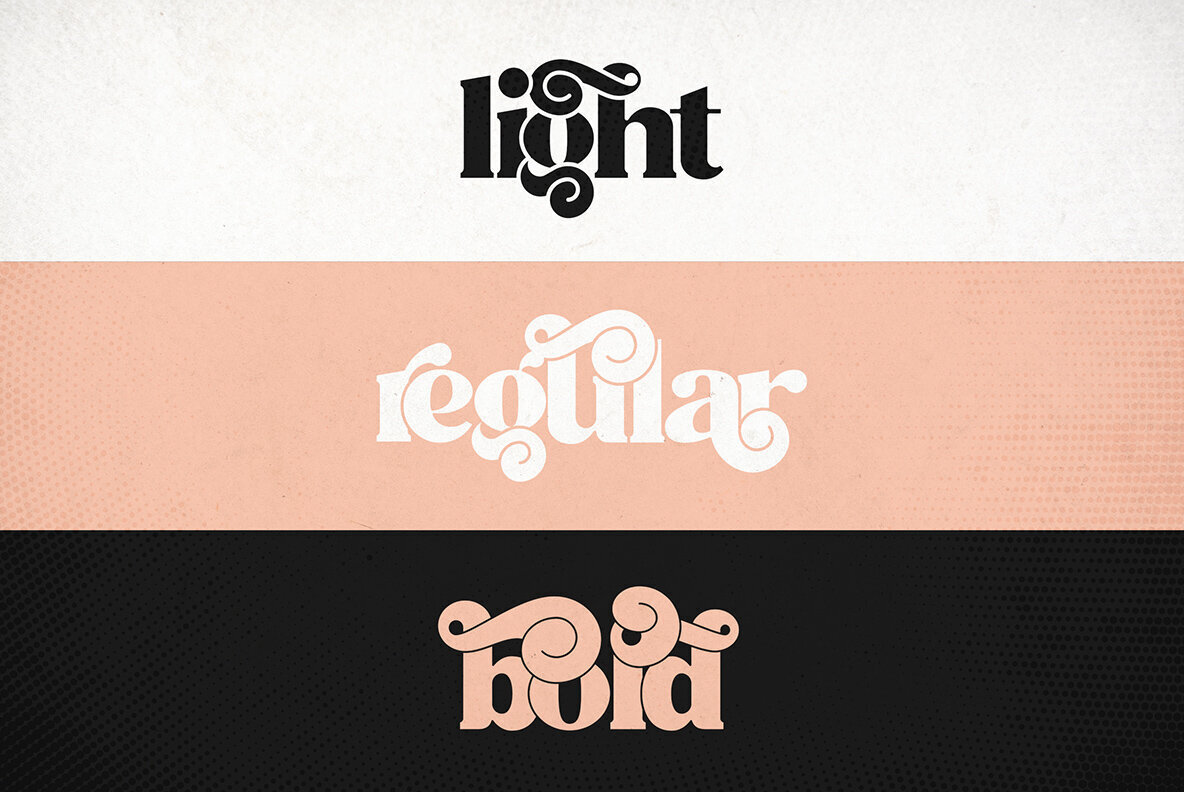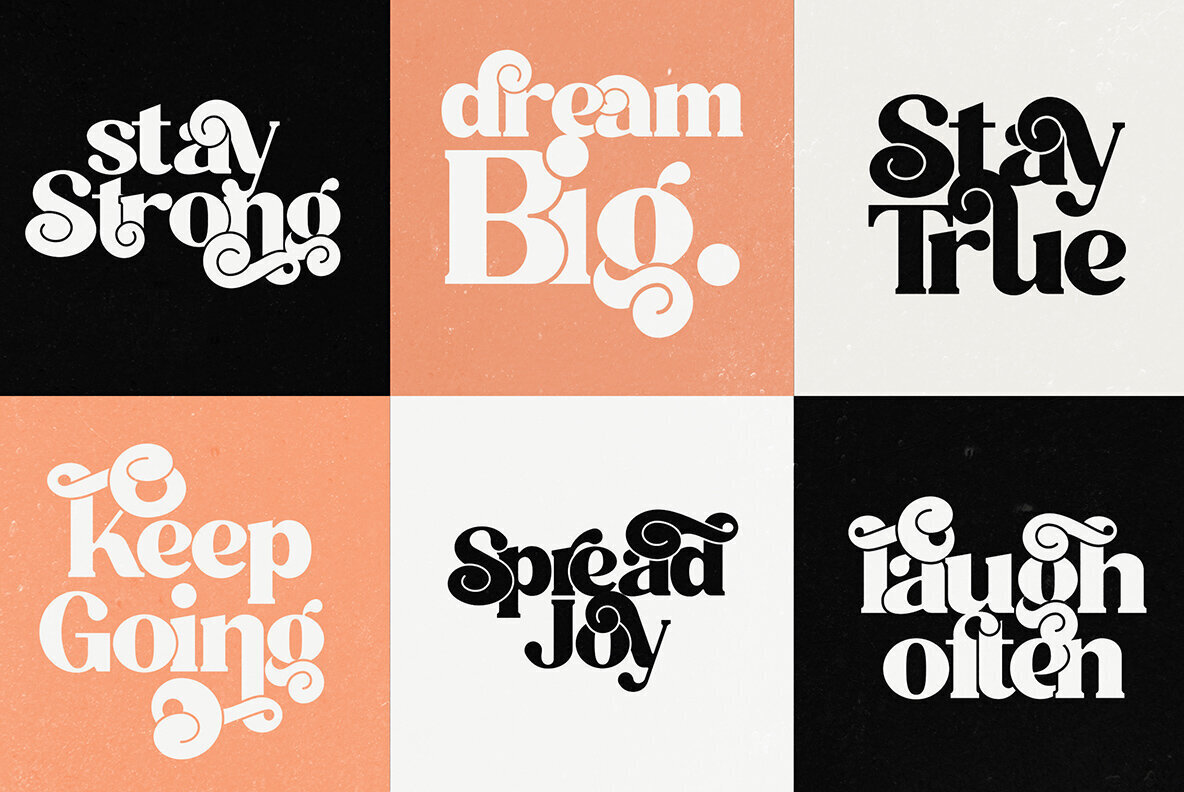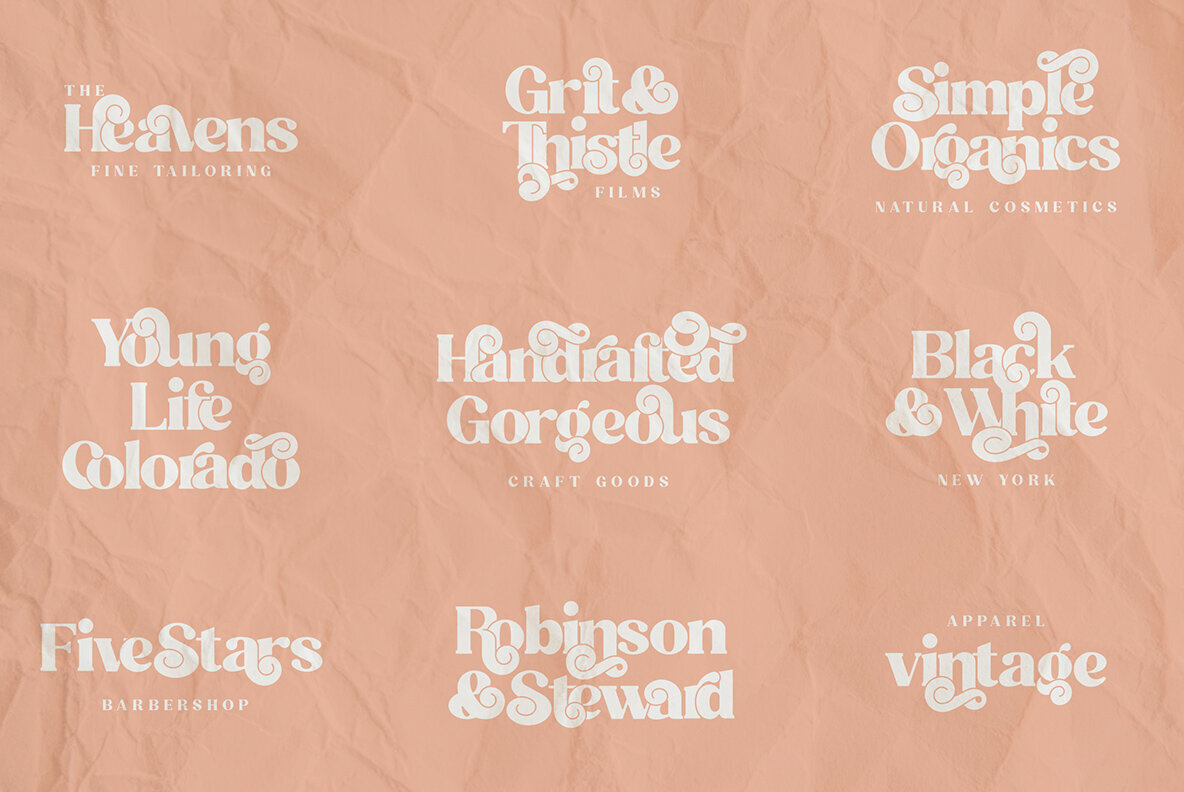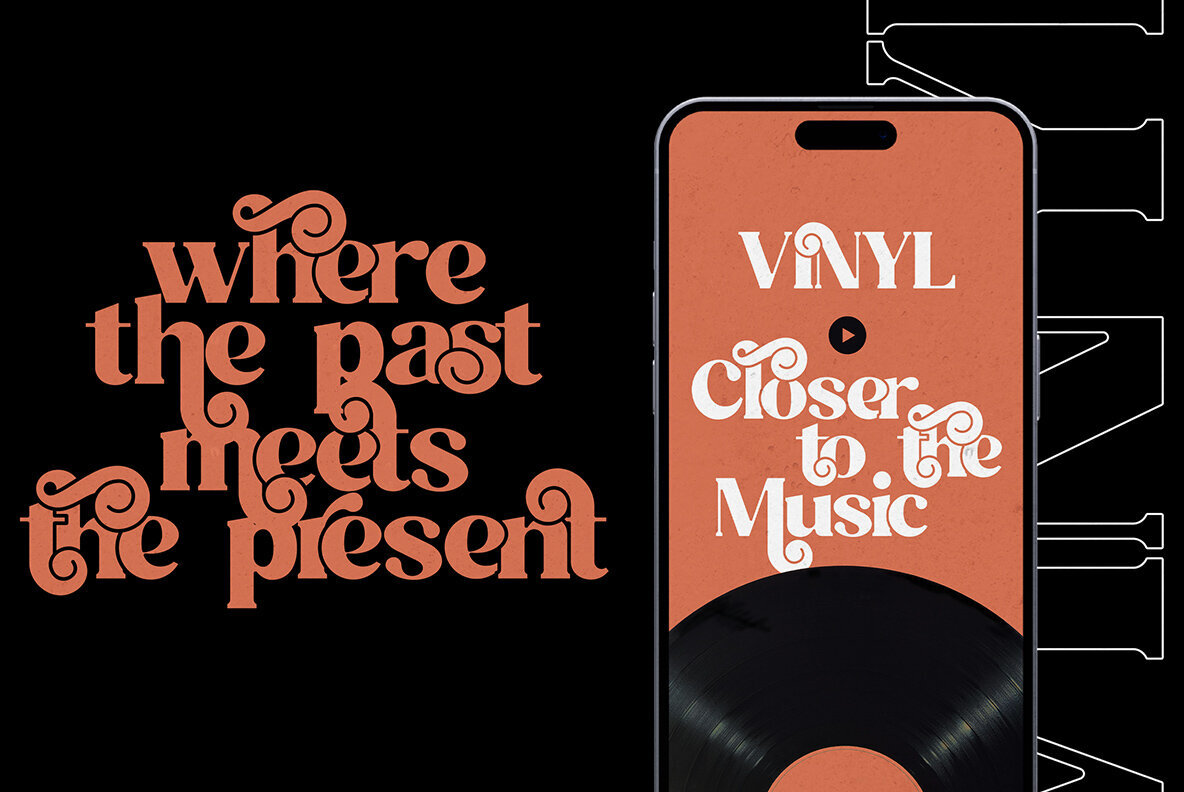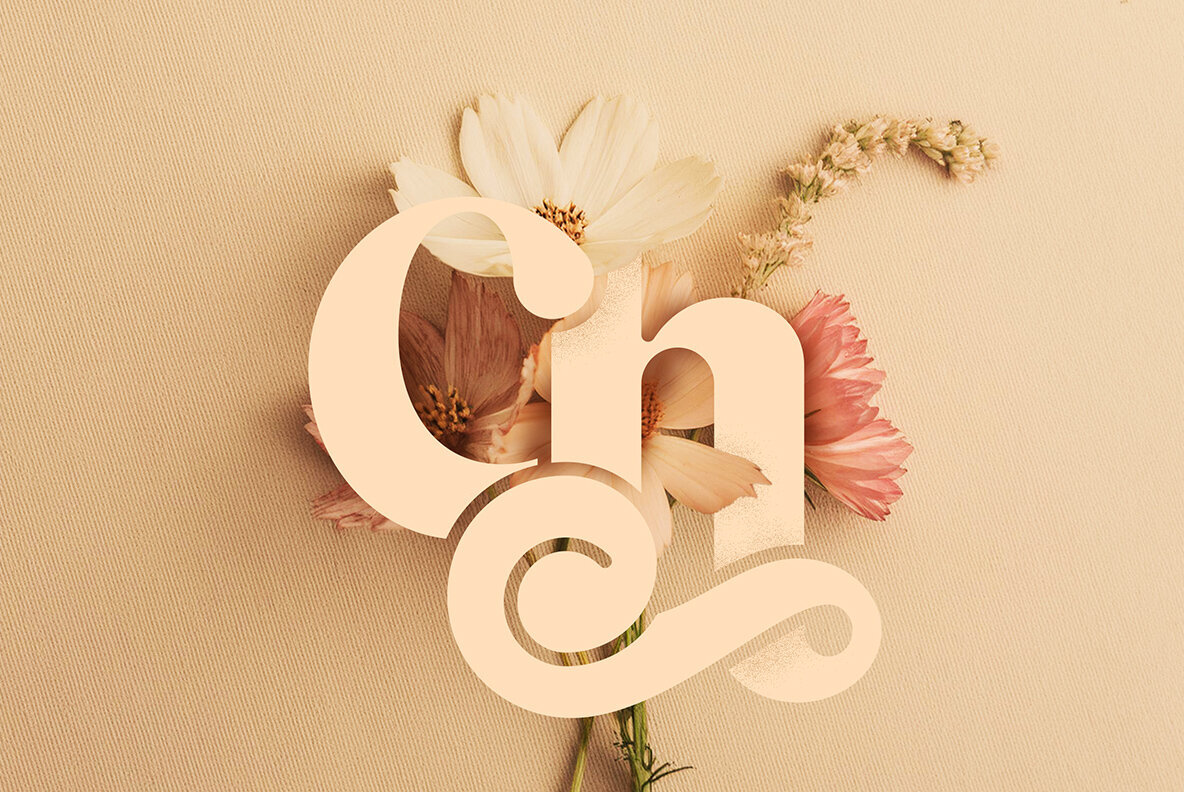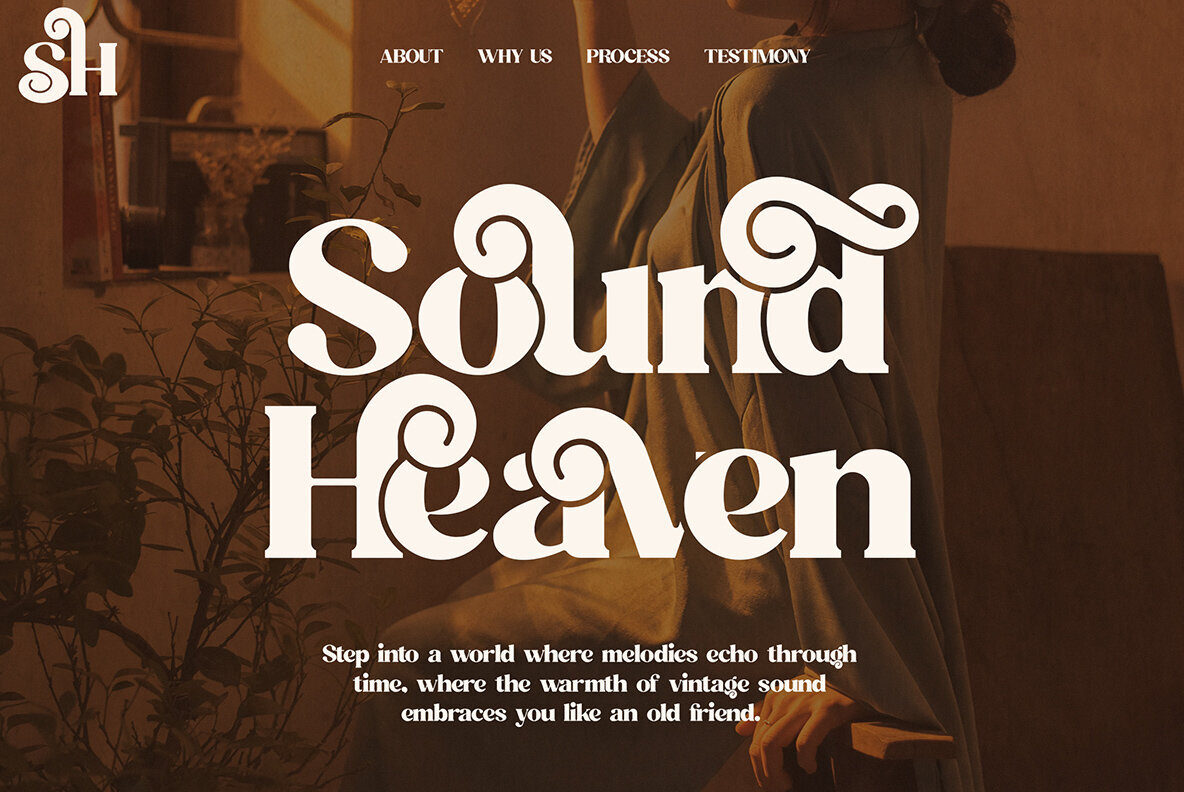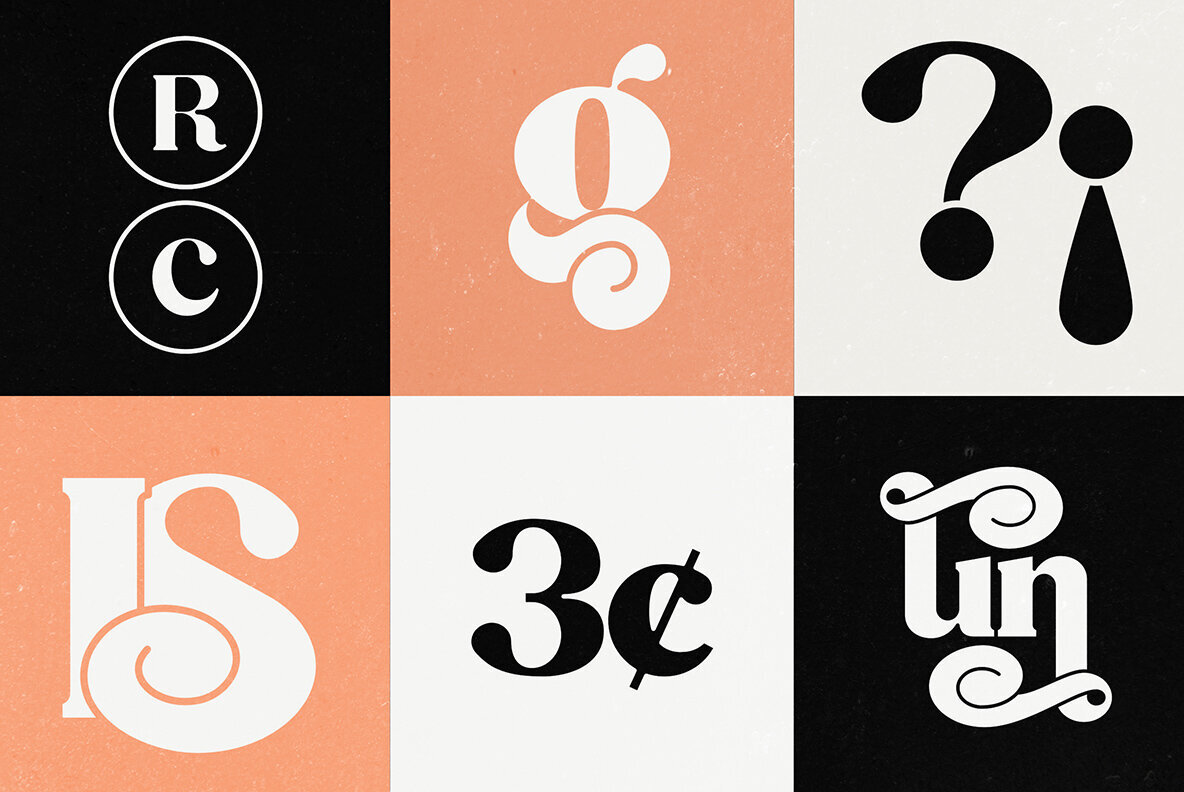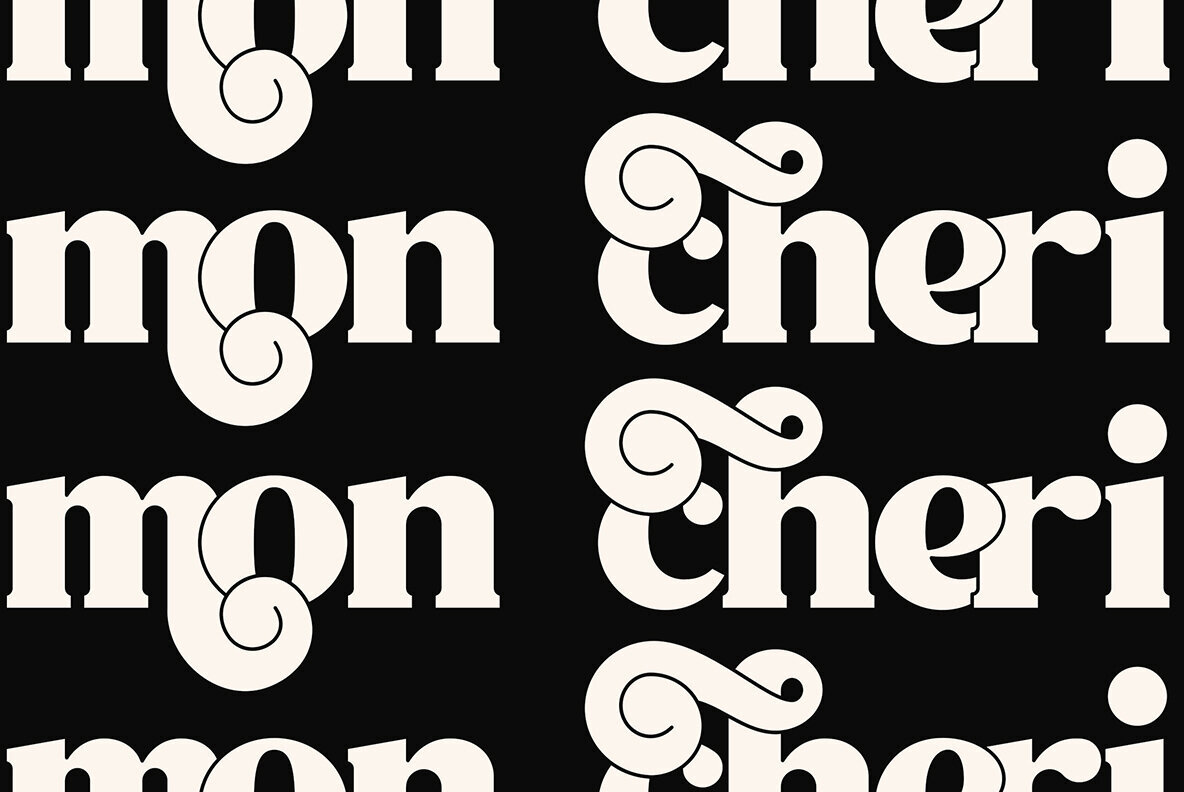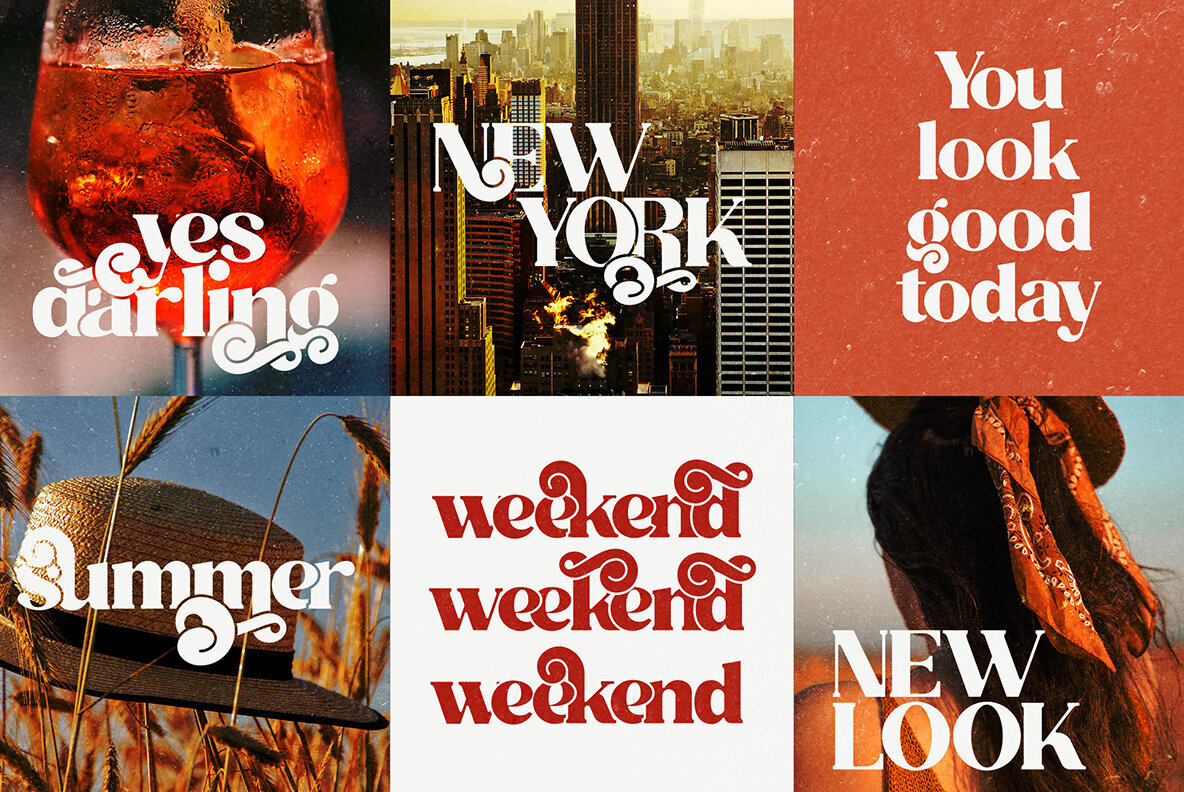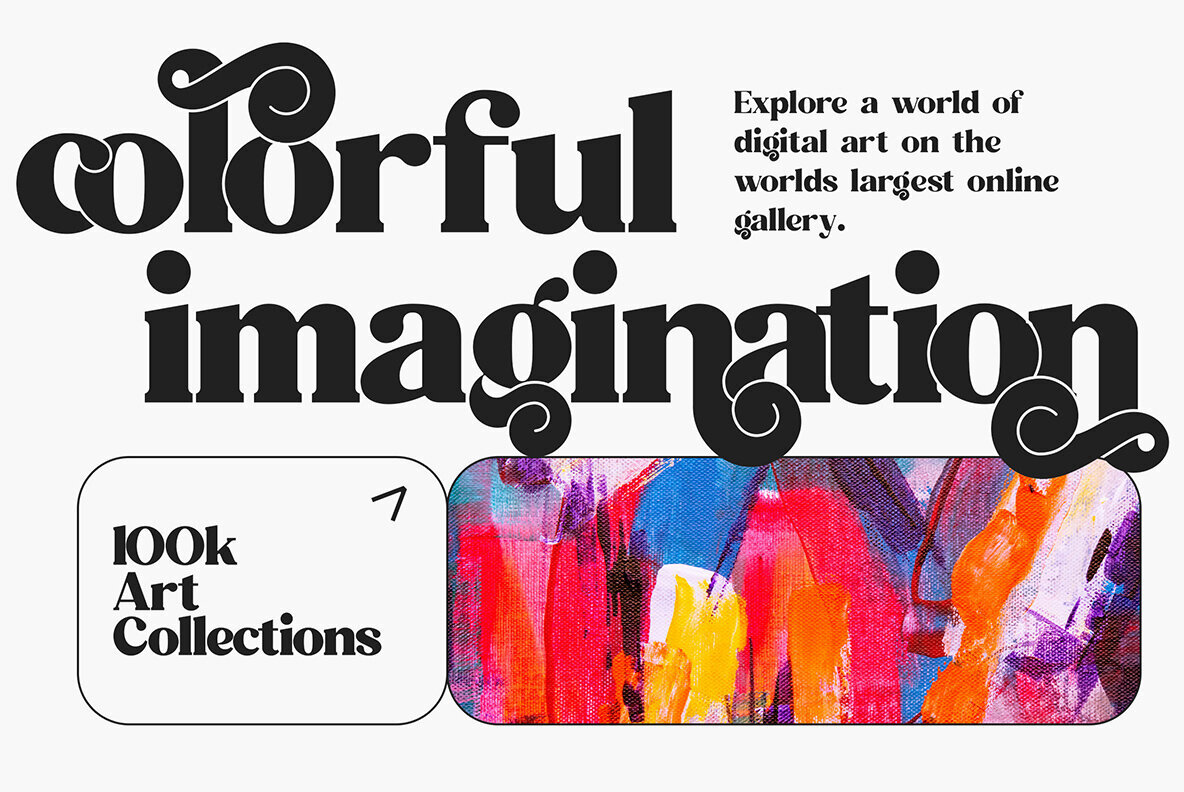
Hefton Font
Hefton Typeface is a meticulously crafted display ligature font developed over five months. It features over 200 ligature glyphs, alternate characters, and supports 87 languages. Available in light, regular, and bold weights, Hefton seamlessly blends vintage charm with a modern aesthetic, making it an exceptional choice for diverse design projects.
This versatile typeface supports numerous languages including Afrikaans, Albanian, Basque, Czech, Danish, Dutch, English, French, German, Italian, Polish, Portuguese, Spanish, Swedish, Turkish, and Welsh among others. Each character has been thoughtfully designed to offer flexibility and sophistication, whether used in branding, advertising, or digital design. Note that mockups and backgrounds are not included.